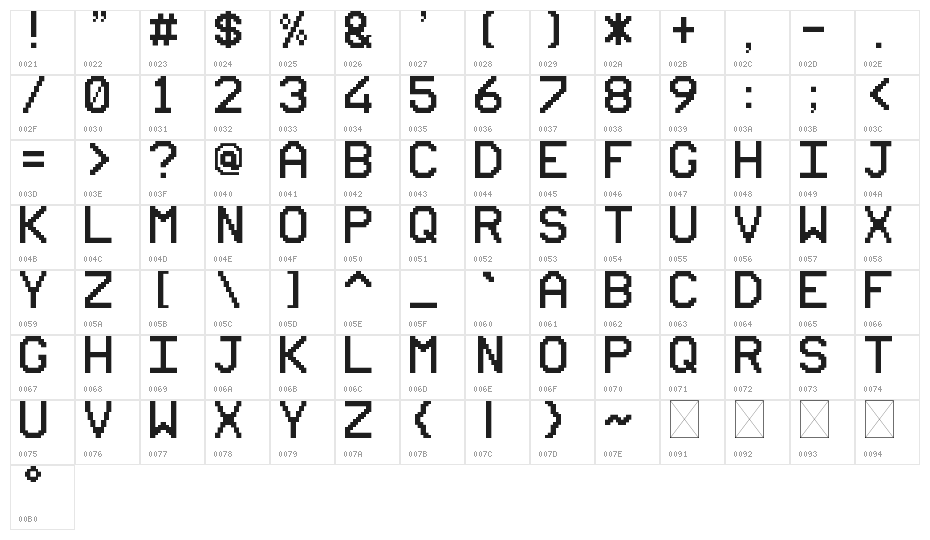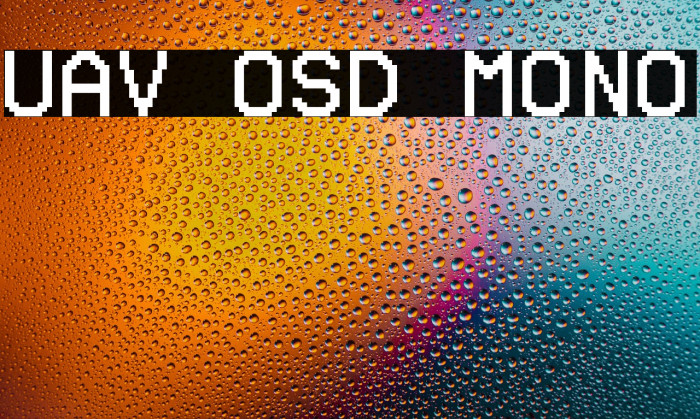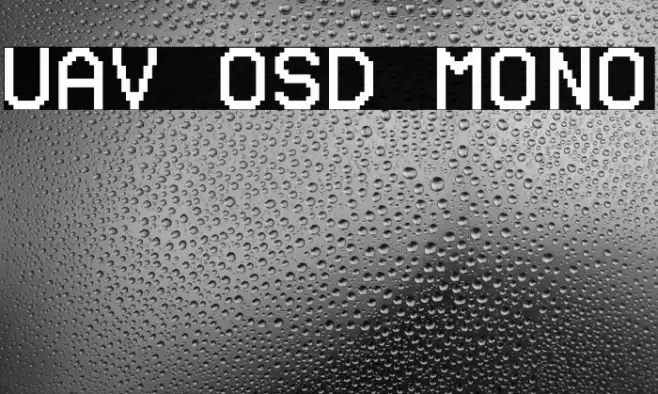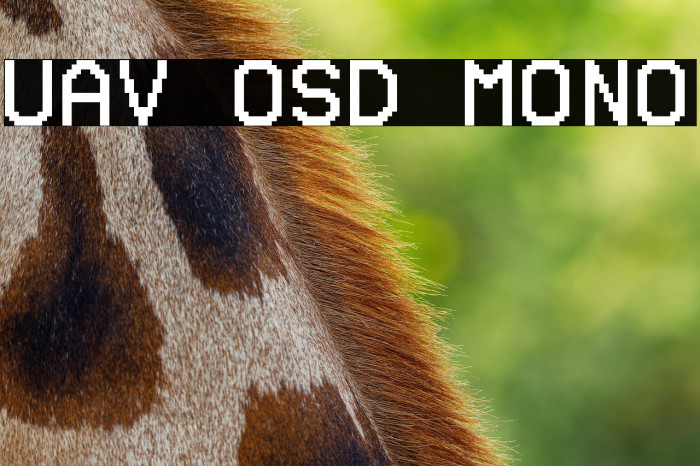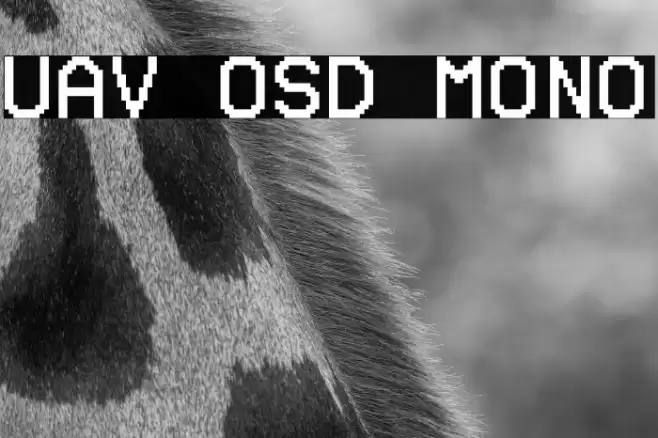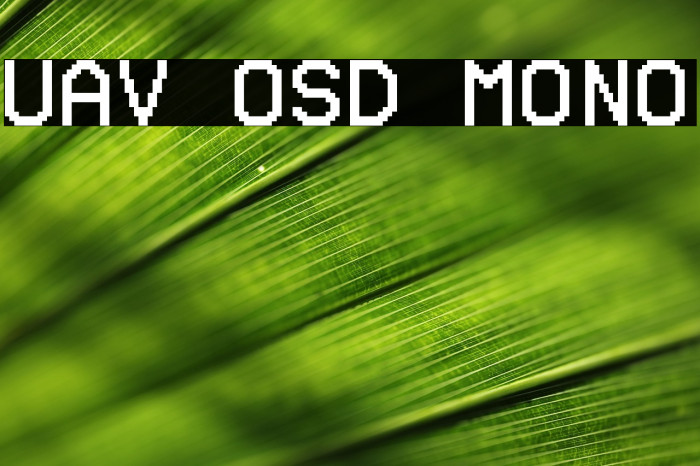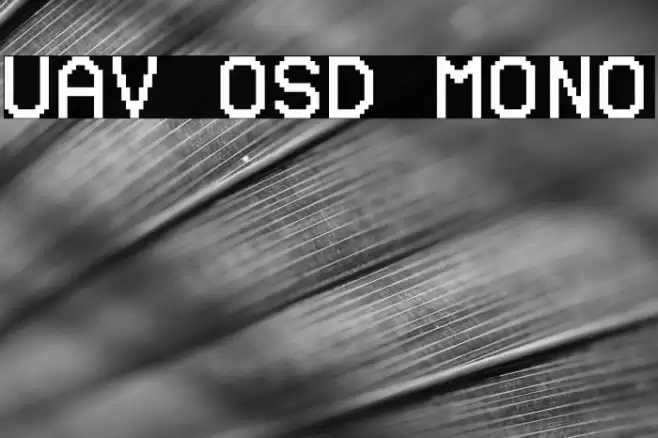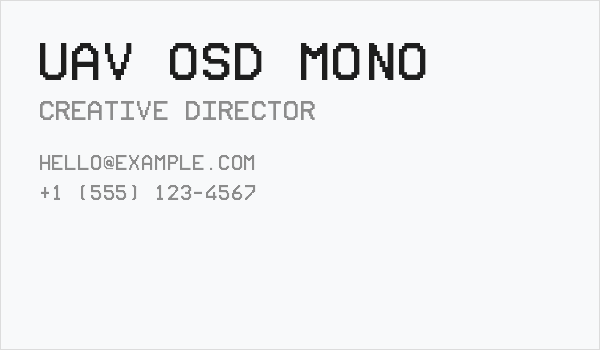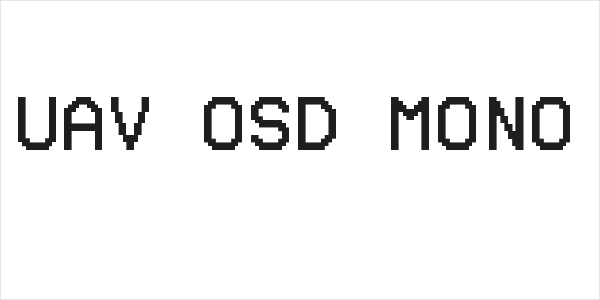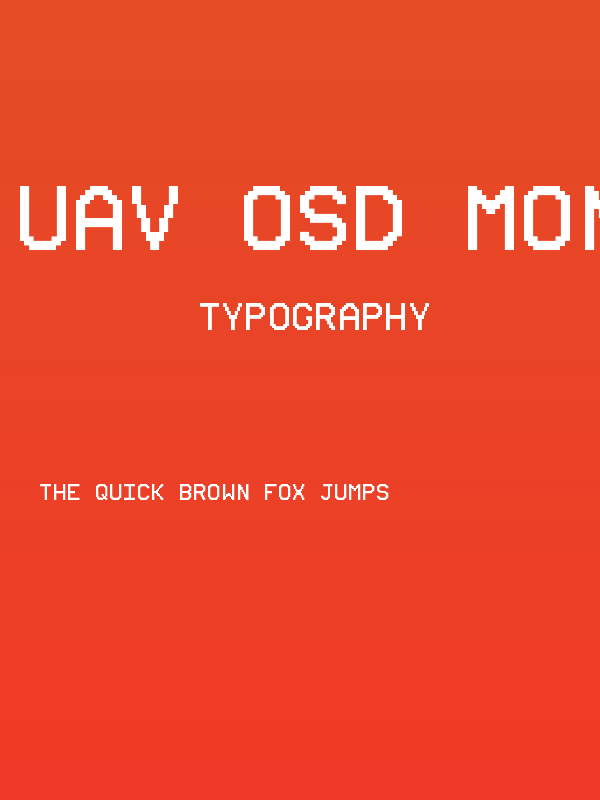
UAV OSD Mono Font
UAV OSD Mono Description
This font features a pixelated, monospaced design reminiscent of early computer and video game graphics. Each character is constructed with a grid-like precision, offering a retro aesthetic that is both functional and nostalgic. The uniformity in width across all characters ensures a consistent and orderly appearance, making it ideal for digital displays and environments where clarity and simplicity are paramount. The characters are bold and easily legible, with a straightforward geometric style that emphasizes readability. The font includes a full set of uppercase and lowercase letters, numbers, and a variety of special characters, providing versatility for various applications.
| Use Case | Digital displays, Coding, Retro games |
| Proposed Projects | Ideal for retro video games, digital displays, coding environments, and tech-themed designs. |